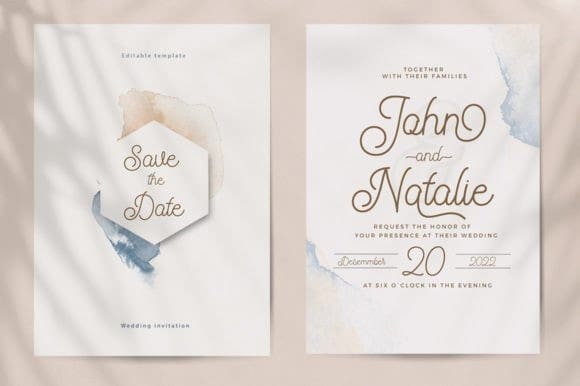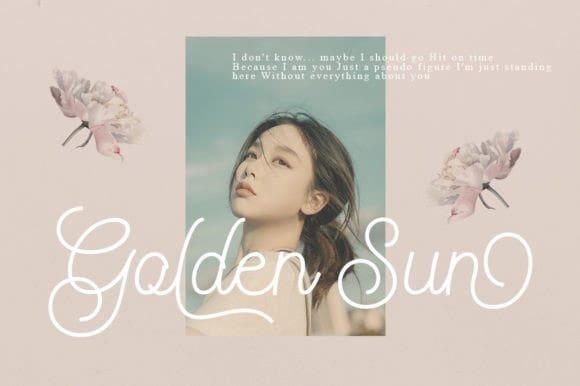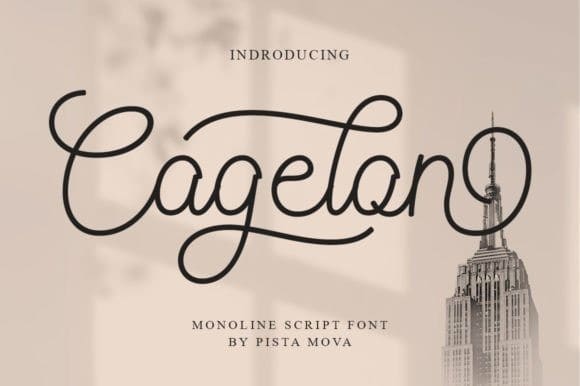
Cagelon Script Font
Cagelon Script Font is an adorable handwritten font with a cute and whimsical feel. Fall in love with its subtle and authentic charm and wide set of unique characters and add it to your favorite projects.